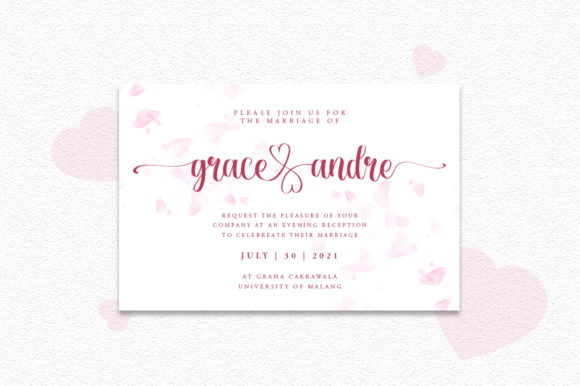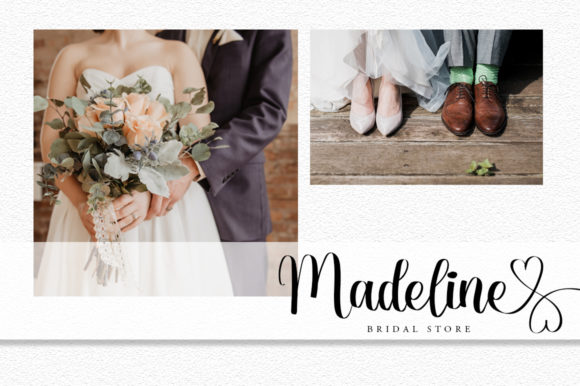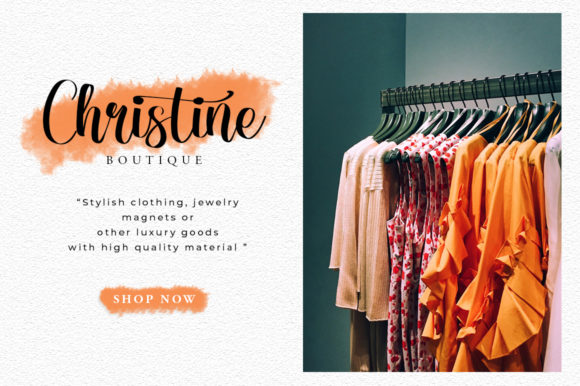
Hidden Love is an elegant and flowing handwritten font.
It is PUA encoded which means you can access all of the glyphs and swashes with ease It features a varying baseline, smooth lines, gorgeous glyphs and stunning alternates.